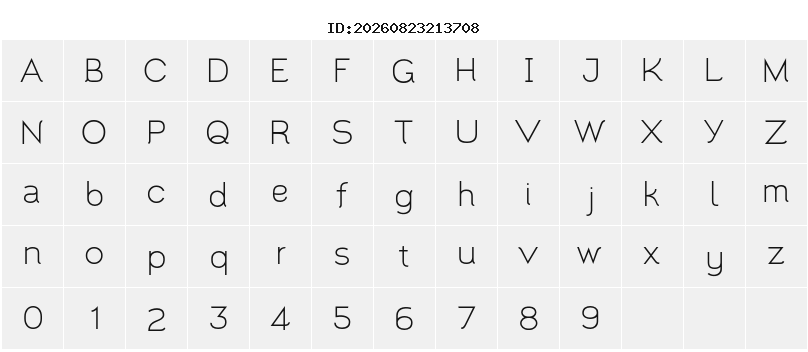
Santor Preview
• Font Name: Santor
• Full Font Name: Santor
• Designer: Nguyen Son Tra
• Manufacturer: Nguyen Son Tra
About Santor.otf
Santor.otf is a modern, elegant sans-serif font designed for ultimate readability and visual harmony. Perfect for branding, headlines, web design, and print materials.